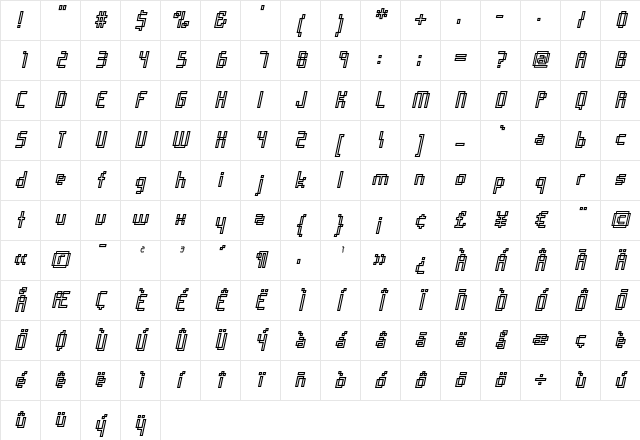
Complete Orgasmia NinetyOutItalic glyph index. Displaying only characters natively supported by Orgasmia NinetyOutItalic font.
Orgasmia is a composed and adaptable typeface that performs quietly and consistently across a wide range of design contexts. The slanted form adds forward momentum and visual energy.